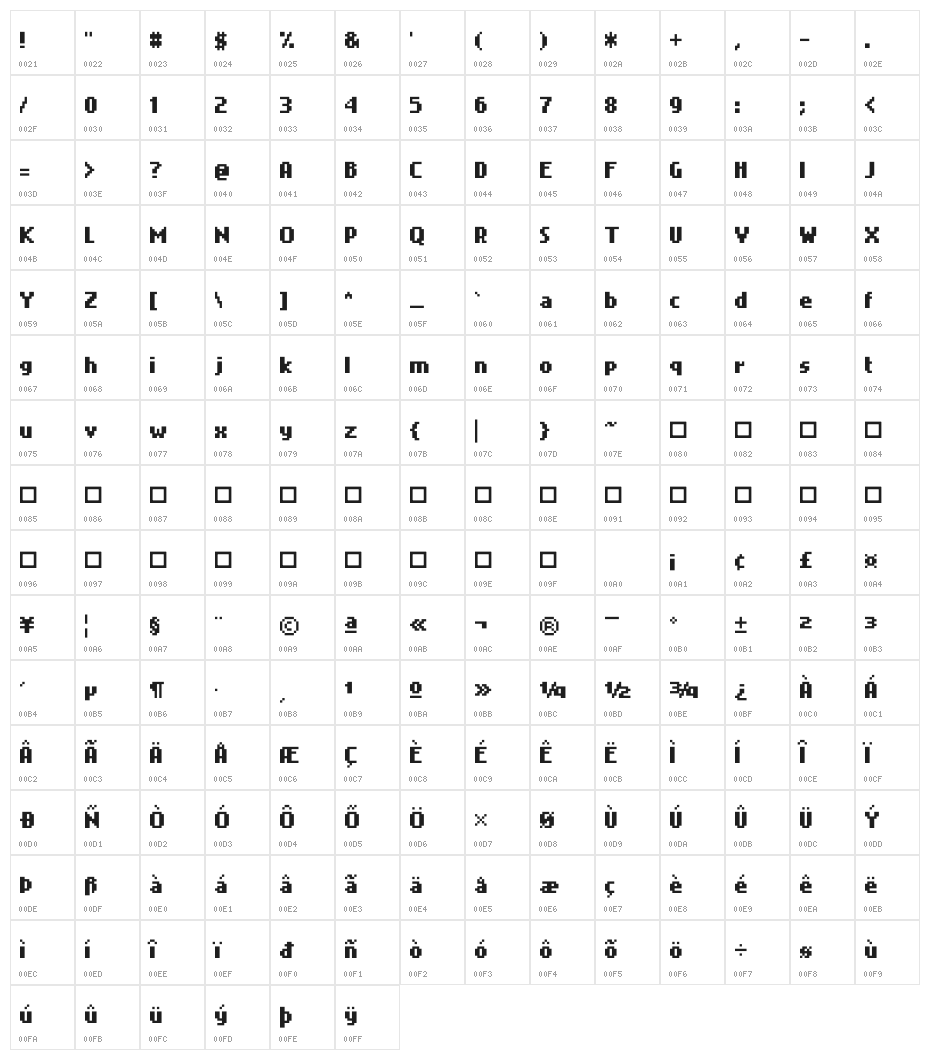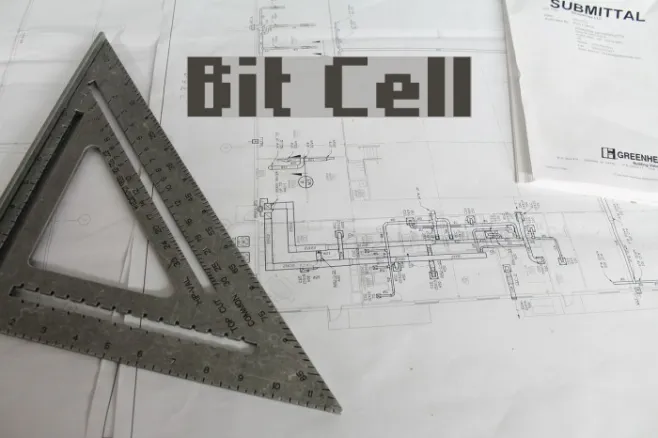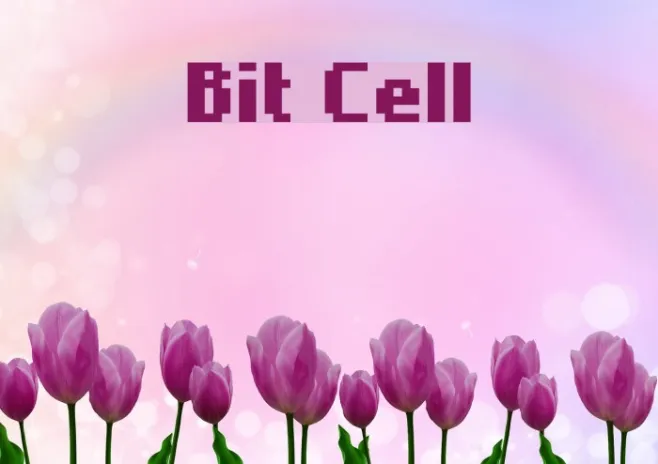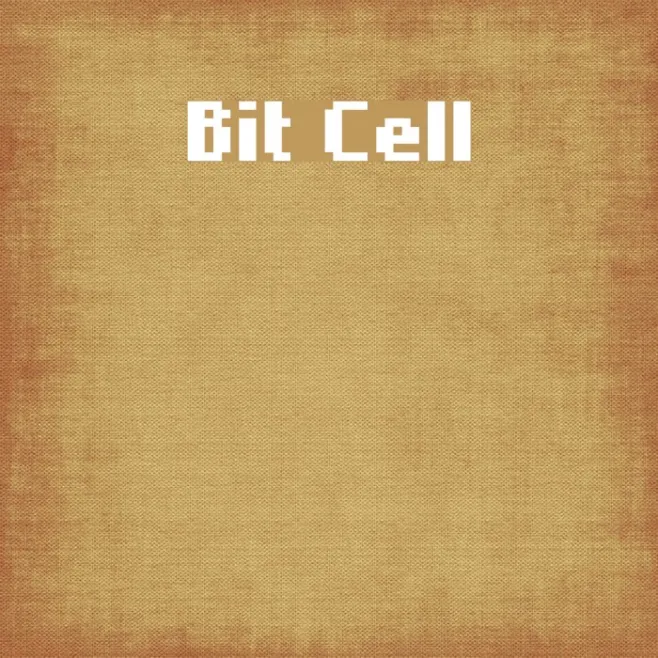
Bit Cell Font
Bit Cell Description
This font features a bold, pixelated design reminiscent of early digital displays and video games. Each character is constructed with a blocky, grid-like structure, giving it a distinctly retro and digital aesthetic. The uppercase and lowercase letters maintain a consistent height, enhancing the uniformity and readability of the text. Numbers and special characters follow the same pixelated style, ensuring a cohesive appearance across all glyphs. The overall design is simple yet striking, making it ideal for projects that require a nostalgic or tech-inspired look.
| Proposed Projects | Perfect for retro video game designs, tech-themed posters, digital art, and any project needing a nostalgic digital touch. |